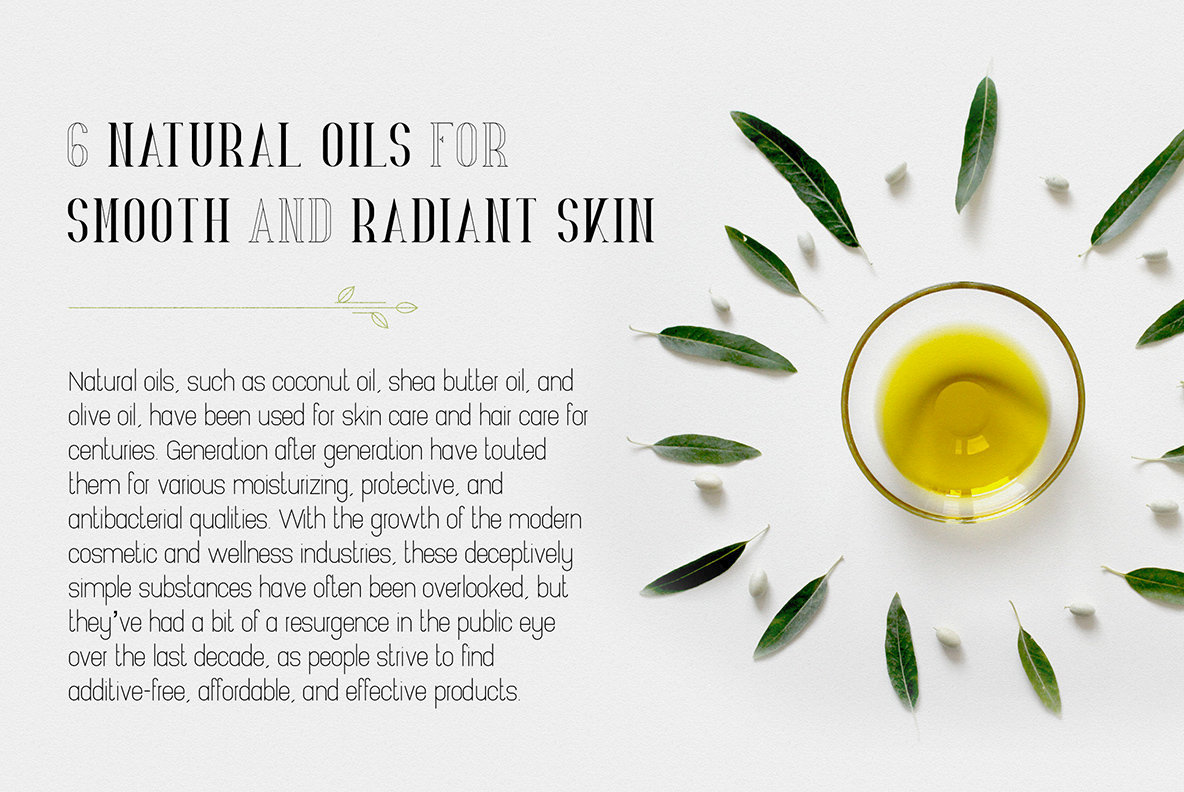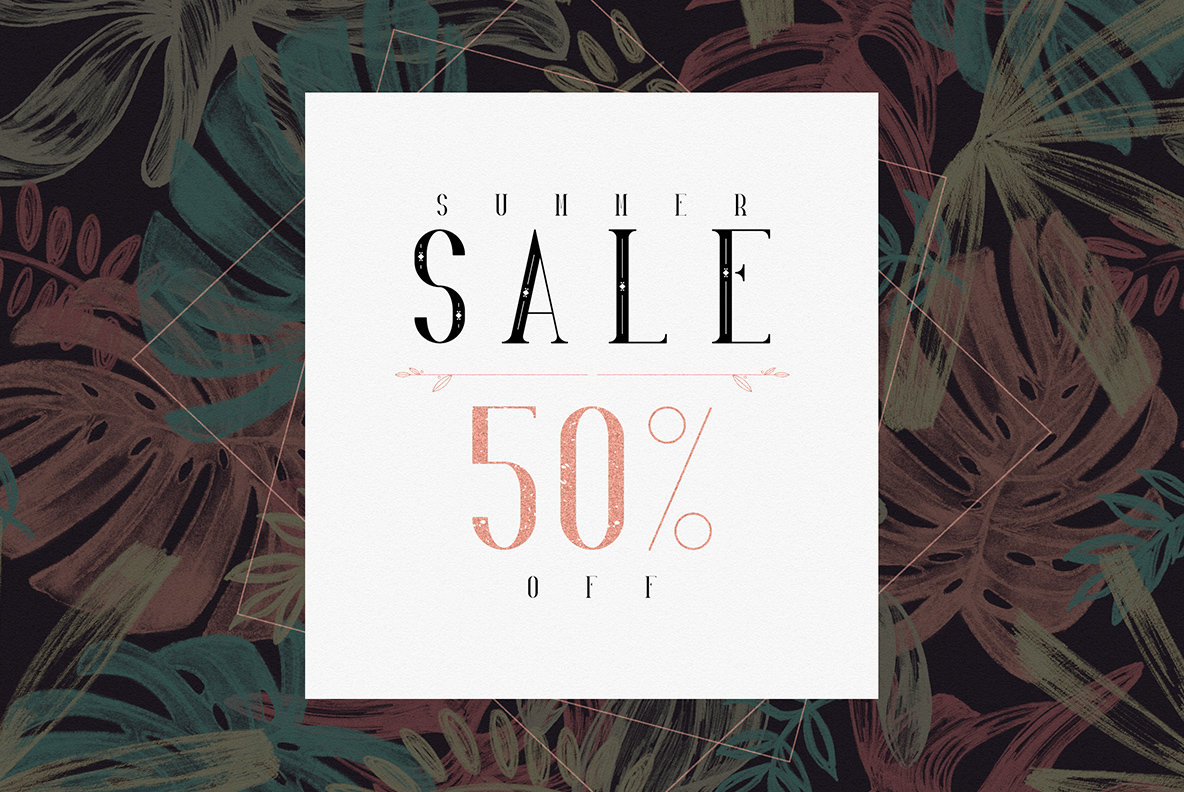
Desislava Font
Elegant and versatile, the Desislava font family includes five distinct styles, 26 vector elements, and 24 unique textures. This sophisticated typeface offers multilingual support, ensuring seamless integration across diverse design projects. Its crisp and clean lines transition beautifully from large to small sizes, making it adaptable to various creative applications. Desislava proves indispensable for branding projects, homeware design, product packaging, and magazine headers. It also serves as a stylish text overlay, enhancing any background image with its refined aesthetics.Desislava: Luxurious Serif Family